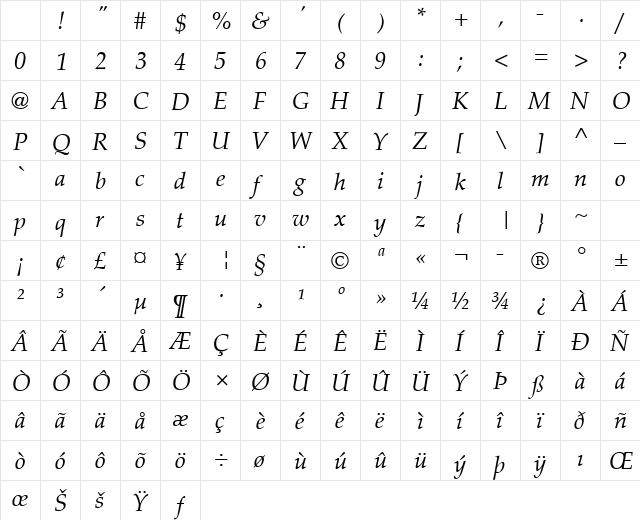
Palermo is a composed and adaptable typeface that performs quietly and consistently across a wide range of design contexts. The slanted form adds forward momentum and visual energy.
Pro Tip: Use Palermo for emphasis, pull quotes, and subheadings where its slanted energy can add rhythm to the layout.